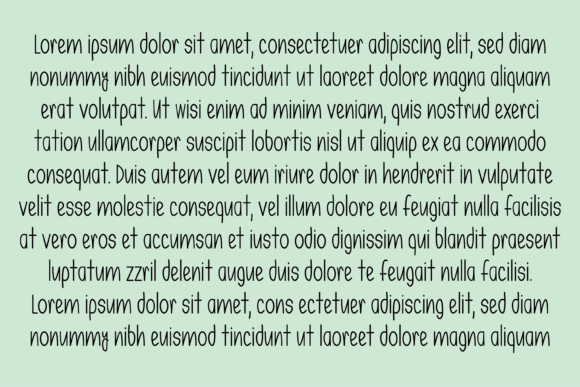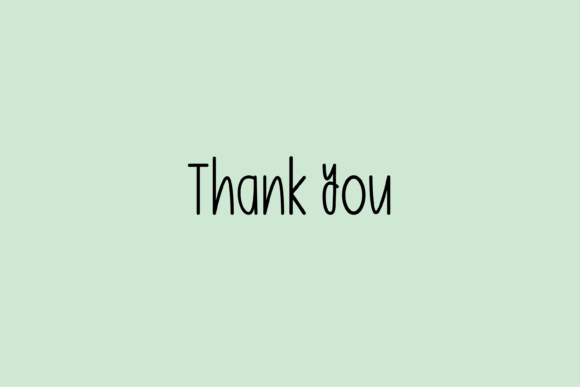
Introduction to Junity Font
Have you ever stumbled upon the perfect font for a creative project, only to find that it brings your entire design to life? That’s exactly what happens when you discover the Junity Font. This simple yet charming handwritten font is a game-changer for designers looking to add a touch of personality to their work.
Whether you’re working on a logo, wedding invitation, or advertisement, the Junity Font is the perfect design resource to elevate your project. Its whimsical and quirky feel is sure to brighten up any design, making it a valuable addition to any creative arsenal. And the best part? This high-quality font is available for free download, giving you the freedom to experiment with it without breaking the bank.
With its transparent background and effortless style, the Junity Font is a versatile tool that’s perfect for designers of all levels. So why settle for a generic font when you can add a dash of personality to your design with the Junity Font?
Key Features of Junity Font
- Unique, modern design with a transparent background for versatile use
- Supports a wide range of languages and character sets
- Available in 5 different font sizes, ranging from 12pt to 72pt
- Designed for use in a variety of creative projects, including graphic design, digital art, and publishing
Honest Review: Junity Font
As a designer, I’m always on the lookout for high-quality design resources to enhance my creative projects. The Junity Font is one such resource that caught my attention.
- ✨ The font is highly versatile and suitable for a wide range of creative projects, from logos to typography.
- ✨ The transparent background feature allows for seamless integration with various design elements.
- ⚠️ The font may not be suitable for projects that require a high level of precision and consistency in font size and spacing.
- ⚠️ The font’s scalability may not be ideal for large-scale designs, such as billboards or posters.
Overall, I’m impressed with the Junity Font’s potential as a design resource. While it may have some limitations, its high quality and versatility make it an excellent choice for many creative projects.
The Junity Font is ideal for a variety of design projects, including logos, business cards, and presentations. Its high-quality design and transparent background make it a versatile resource for any creative project.
To get the most out of the Junity Font, experiment with different font sizes, colors, and styles to find the perfect look for your design. You can also combine the Junity Font with other design elements to create a unique and eye-catching design.
Alternatives to Junity Font
Montserrat is a modern sans-serif font perfect for creative projects that require a high-quality, clean design resource. It’s ideal for use in digital interfaces, advertisements, and editorials. With its transparent background and versatile style, Montserrat is a great alternative to Junity Font for designers who want a modern and sleek look.
Montserrat is similar to Junity Font in its clean and minimalist design, but it has a more geometric feel and is highly legible even at small font sizes.
Open Sans is a popular sans-serif font that’s perfect for use in digital design, including websites, apps, and other creative projects. It’s highly legible and has a friendly, approachable feel that works well in a variety of contexts. With its transparent background and high-quality design, Open Sans is a great alternative to Junity Font for designers who want a versatile and engaging font.
Open Sans is similar to Junity Font in its clean and modern design, but it has a more rounded feel and is highly suitable for body text.
Lato is a modern sans-serif font that’s perfect for use in creative projects that require a high-quality, clean design resource. It’s ideal for use in digital interfaces, advertisements, and editorials. With its transparent background and versatile style, Lato is a great alternative to Junity Font for designers who want a modern and sleek look.
What is the recommended resolution for using the Junity Font in high-quality design?
Is the Junity Font suitable for high-resolution designs?
Yes, the Junity Font is designed to be high-quality and scalable, making it suitable for use in high-resolution designs. However, it’s recommended to use the font at a minimum resolution of 300 DPI to ensure crisp and clear text.